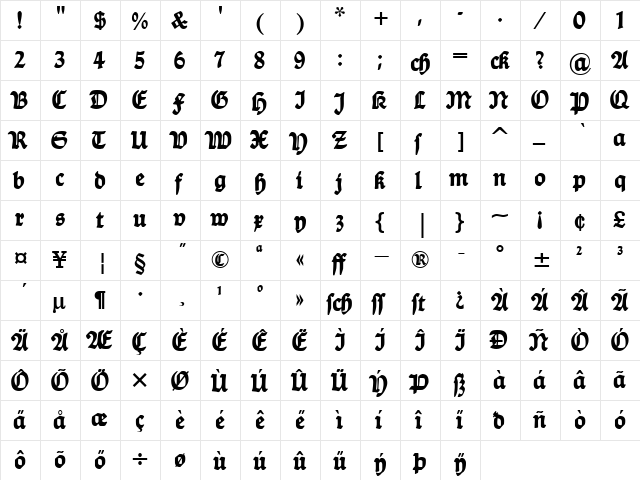
DS Ballade Regular
| Foundry | Typographer Mediengestaltung |
| Designer | Paul Renner (1937) |
Design Context for DS Ballade Typeface
DS Ballade is a composed and adaptable typeface that performs quietly and consistently across a wide range of design contexts.